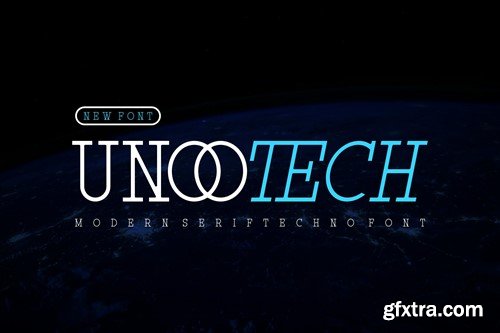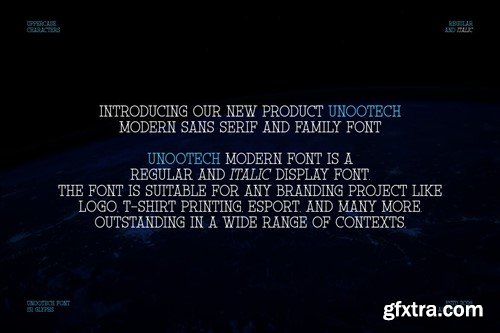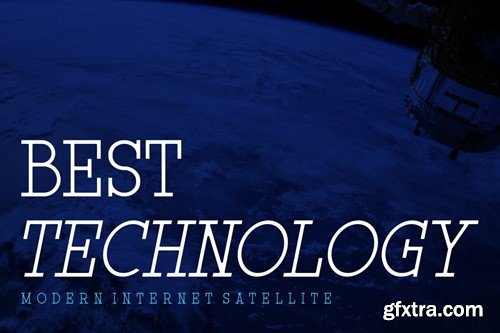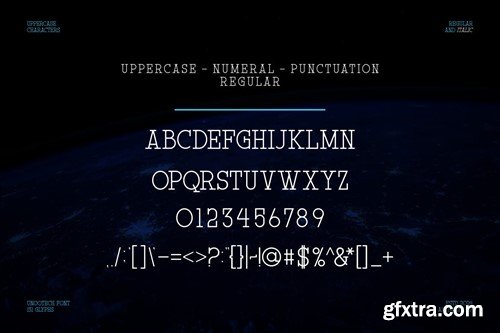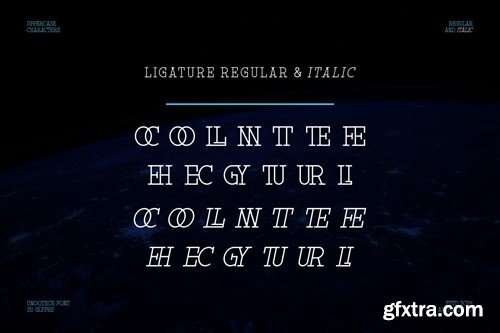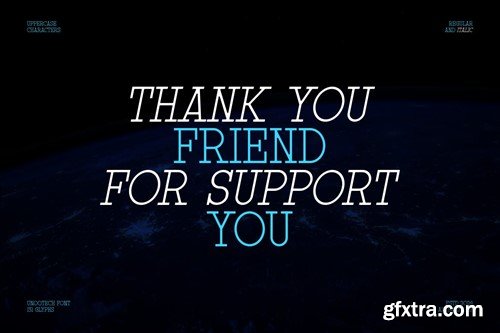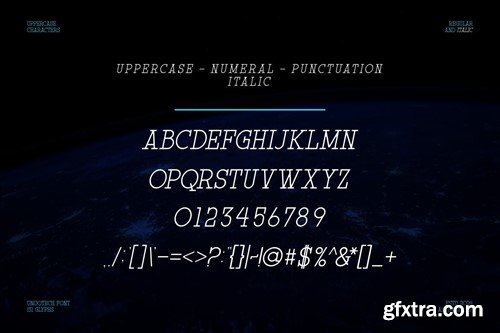
Unootech - Modern Serif Techno Font
Introducing our new product Unootech Font Modern Serif Techno Font
Unootech Font Modern Font is a regular and italic display font. The font is suitable for any branding project like logo, t-shirt printing, esport, and many more. outstanding in a wide range of contexts.